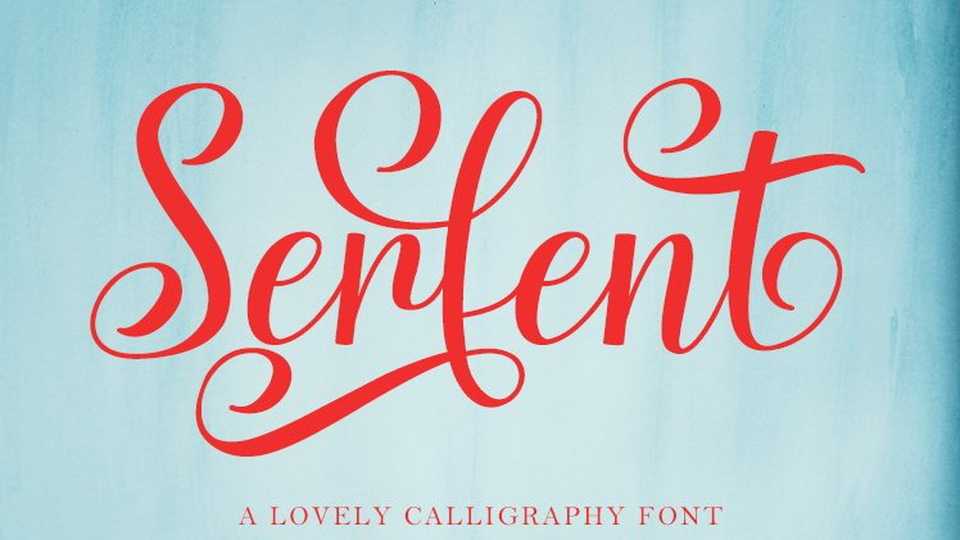
Download Serfent font, a handwritten typeface that is very distinct, subtle and timeless. Serfent looks amazing on wedding invitations, thank you cards, quotes, greeting cards, logos, business cards and any other design that needs a handwritten touch.
Designer: YonTypeStudioCo